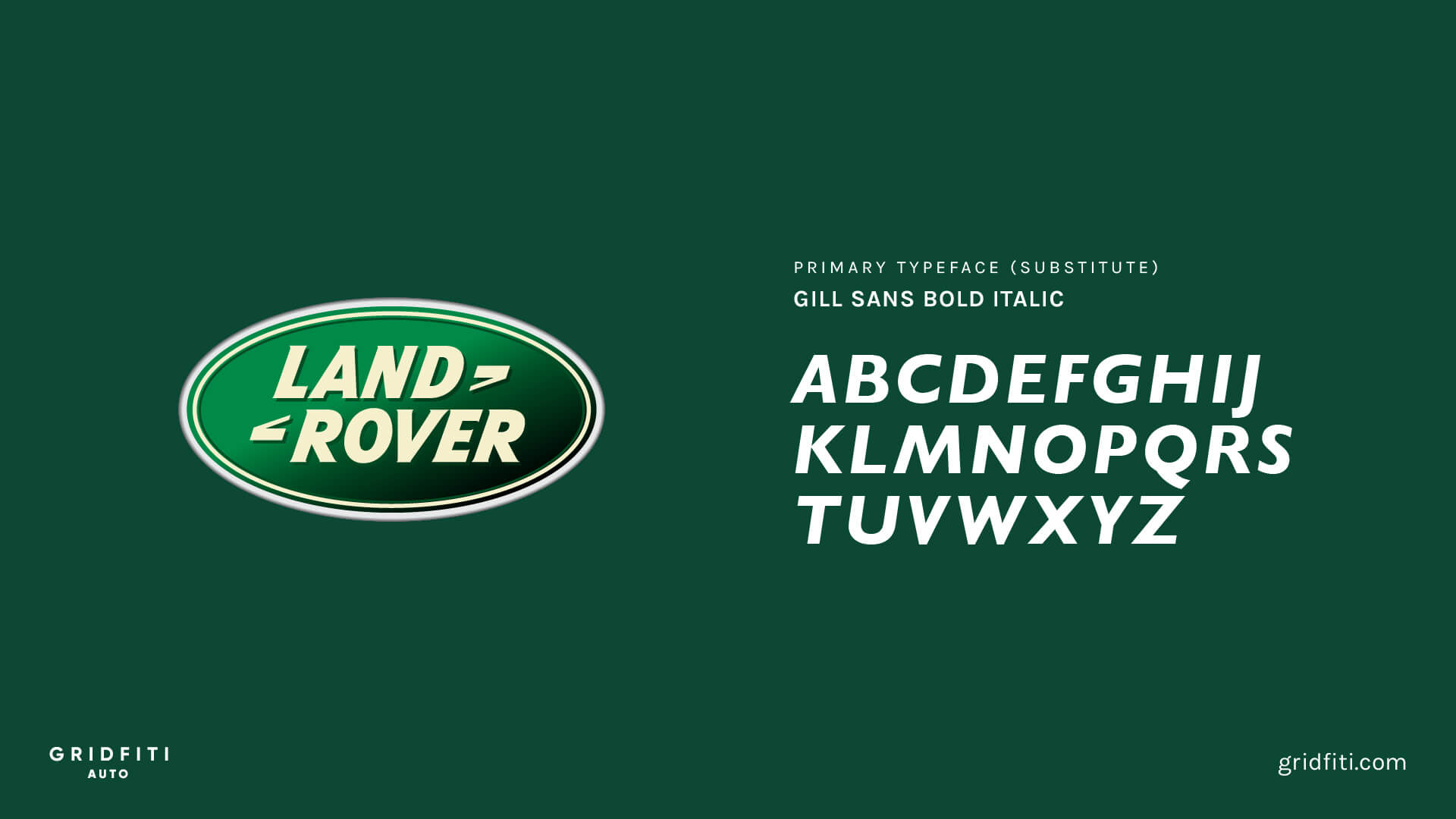
Awasome Free Automotive Fonts References
52 automotive fonts to evoke speed / excitement / masculinity source sans pro as seen on: The automotive world is one of the groups most fans have, car brands and formula one teams compete to be more famous and recognized. Here you can search, browse and download.
The Automotive World Is One Of The Groups Most Fans Have, Car Brands And Formula One Teams Compete To Be More Famous And Recognized.
This Typeface Is Presented By Insanitype And Is A Bold Design So It Can Draw The.